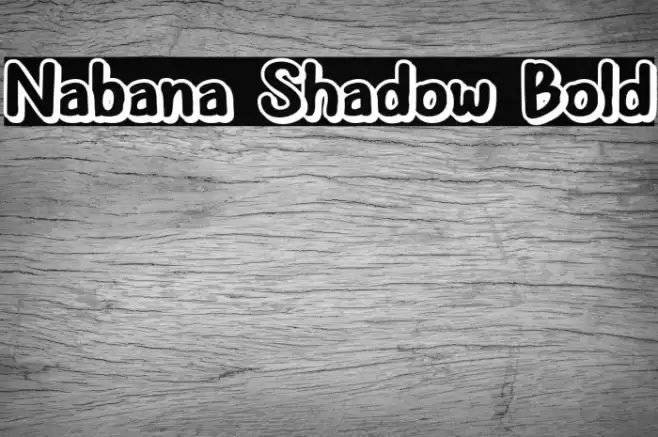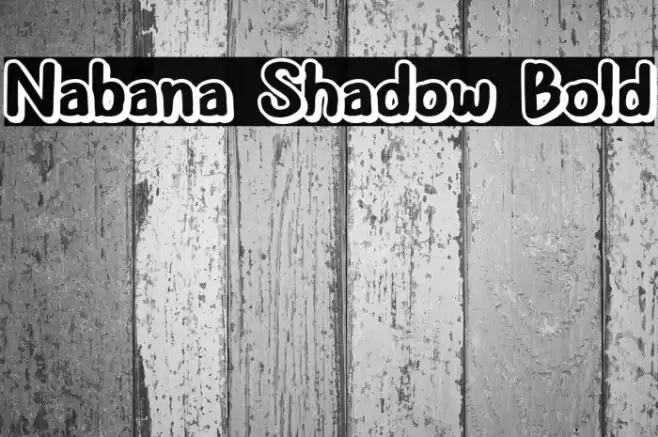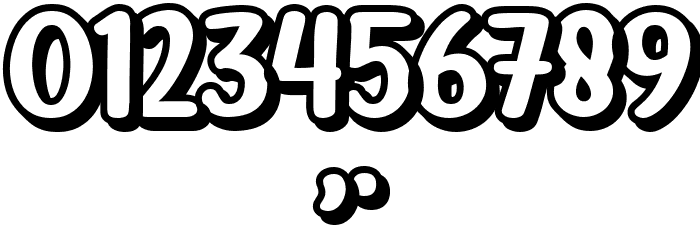
Nabana Shadow Bold Font
Nabana Shadow Bold Description
This font features a bold, playful style with a shadow effect that adds depth and dimension to each character. The letters are rounded and thick, creating a friendly and approachable appearance. The shadow is consistent across all characters, enhancing the 3D effect and making the text stand out. This font is highly legible and maintains a uniform thickness throughout, with a slight emphasis on the curves and edges. The numbers and special characters follow the same design principles, ensuring a cohesive look across all elements.
A bold, playful font with a shadow effect and rounded characters from Uncategorized fonts.
- Proposed Projects: Ideal for children's books, comic strips, playful branding, and eye-catching headlines.
- Overall Style: Playful, Modern